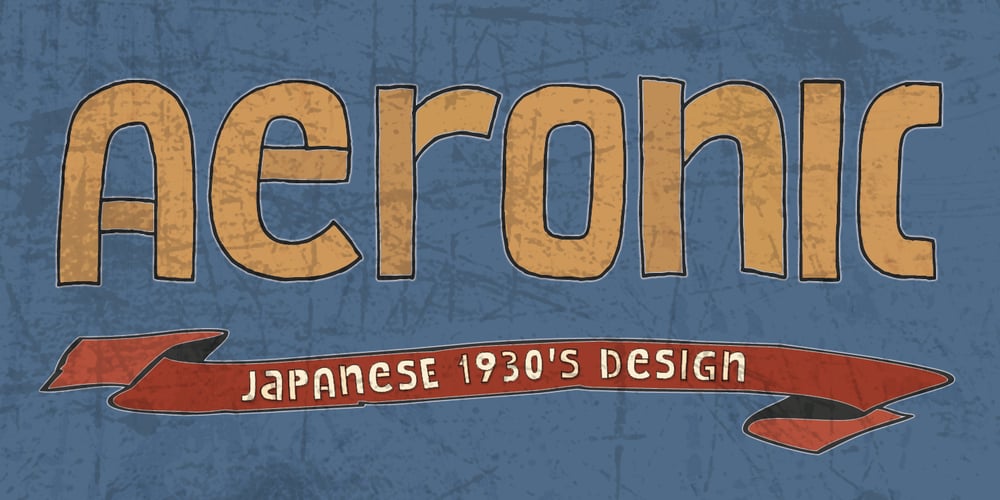
Aeronic Font Family was designed by David Kerkhoff and published by Hanoded. Aeronic contains 1 styles and family package options. Aeronic is a work of love. I stumbled upon a fantastic Japanese poster for Nikke Coat by Gihachiro Okuyama (1907 – 1981). Gihachiro Okuyama (also: Okayama) was a very prolific Japanese print artist who started his career making woodblock prints, but later moved on to posters and advertisements. I tried to recreate the hand lettering in the original 1937 Nikke Coat poster, but since I had to work with a few glyphs only, I designed the remaining ones myself. The outline of Aeronic is rather thin, with thicker bits in some glyphs. It is quite rough in places, but it all adds to its unique look. Aeronic comes with a bonanza of diacritics.